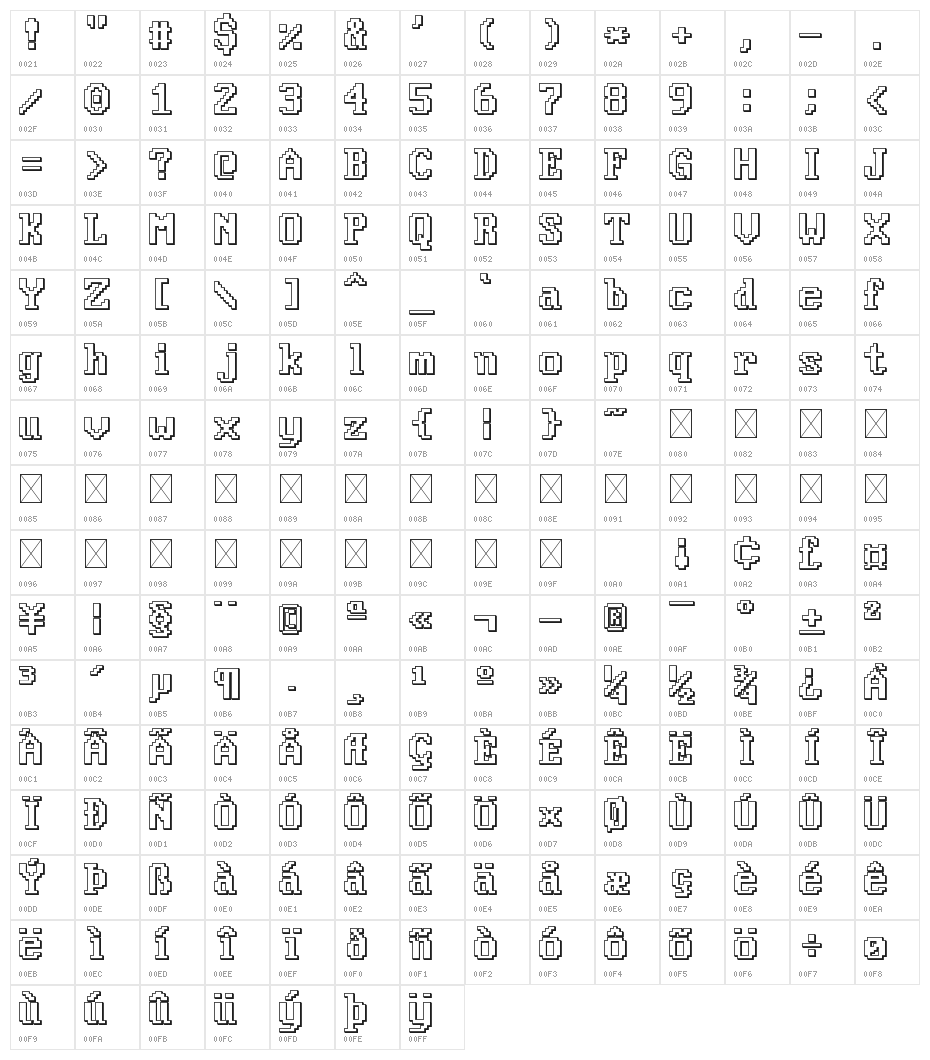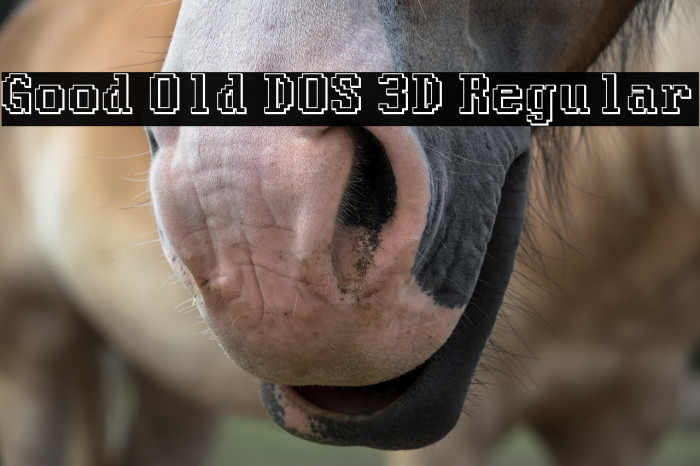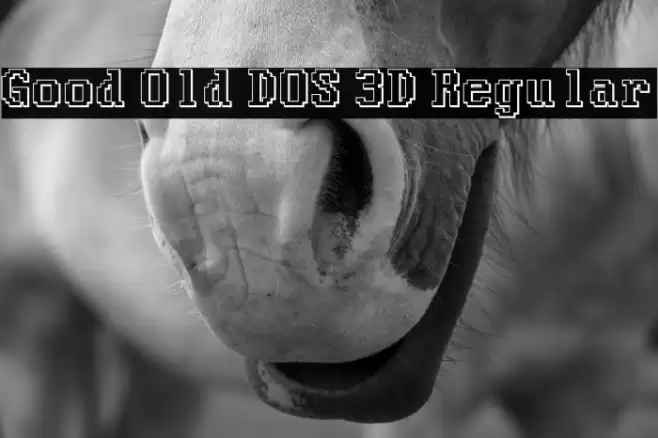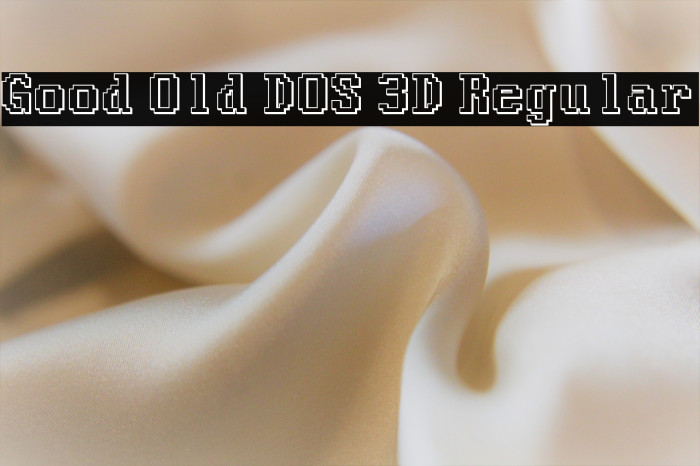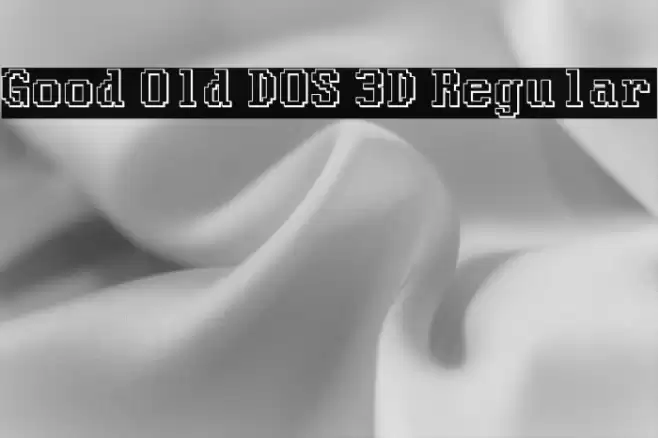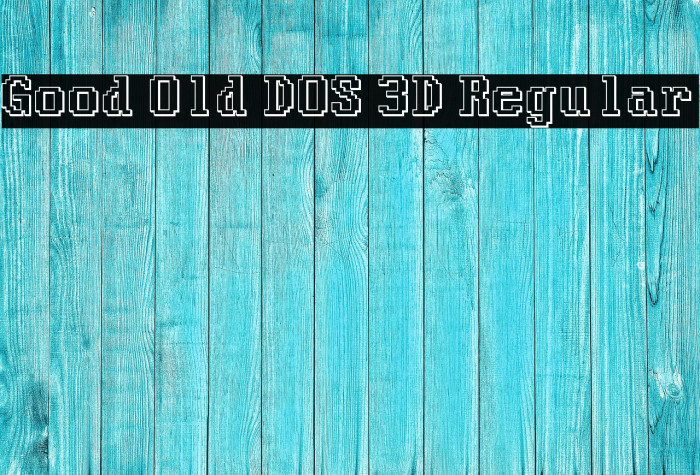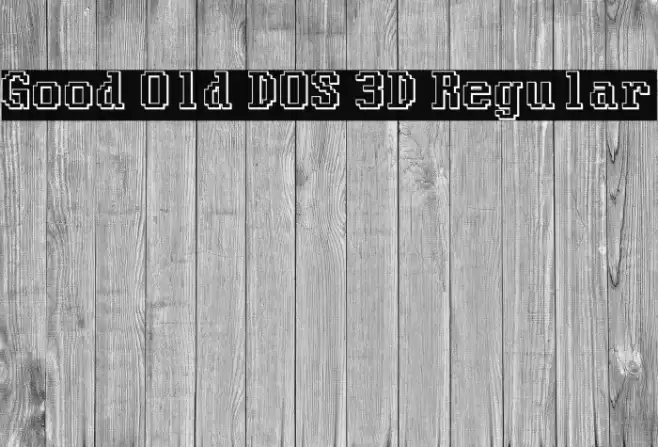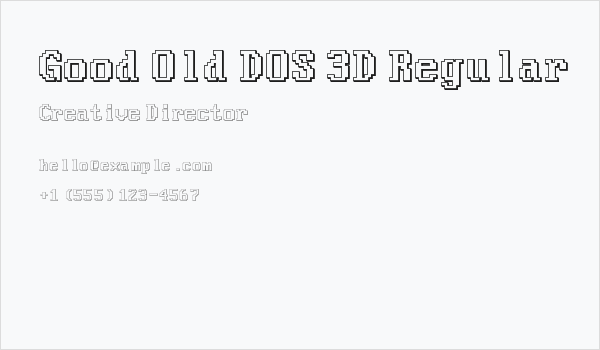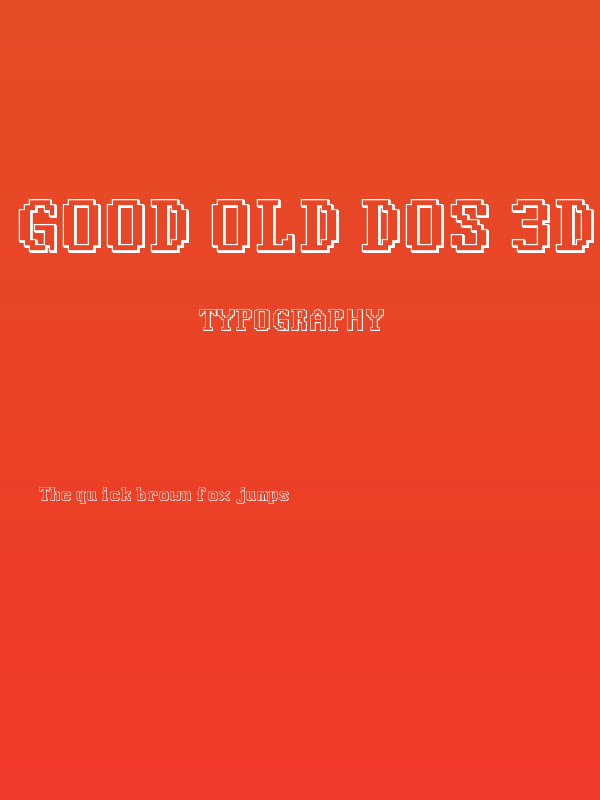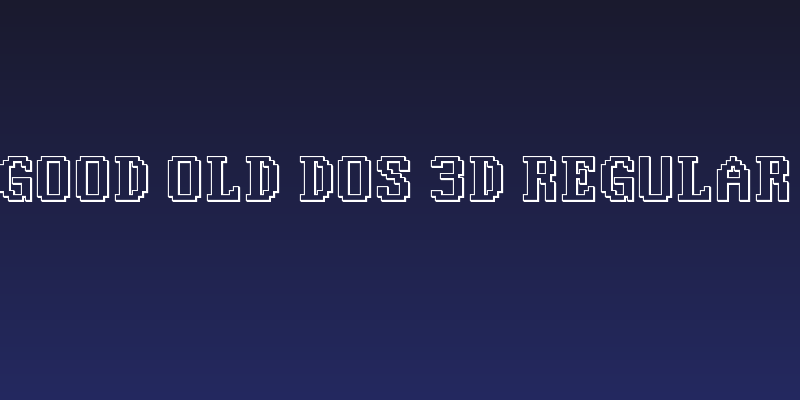
Good Old DOS 3D Regular Font
Good Old DOS 3D Regular Description
This font features a nostalgic, retro design reminiscent of early computer graphics and video games. The characters are outlined with a bold, pixelated 3D effect, giving them a distinct, blocky appearance. The uppercase and lowercase letters maintain a consistent style, with sharp angles and a uniform thickness that enhances the digital aesthetic. Numbers and special characters follow the same design principles, ensuring a cohesive look across all glyphs. The font's unique style makes it stand out, evoking a sense of nostalgia for classic computing and gaming eras.
| Proposed Projects | Ideal for retro-themed designs, video game graphics, digital art projects, and nostalgic branding. |